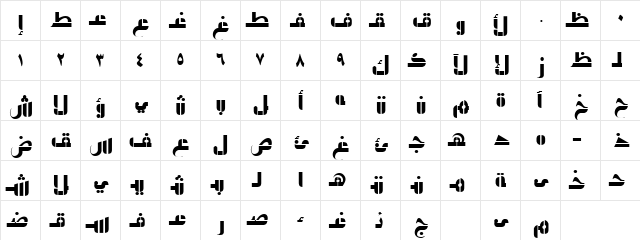
ALW Cool Hashimy. Normal
Design Context for ALW Cool Hashimy. Typeface
ALW Cool Hashimy. offers clean, dependable letterforms without strong stylistic allegiance, making it a practical choice for designers who need flexibility.